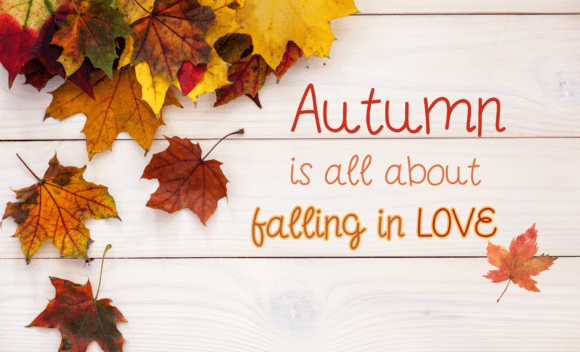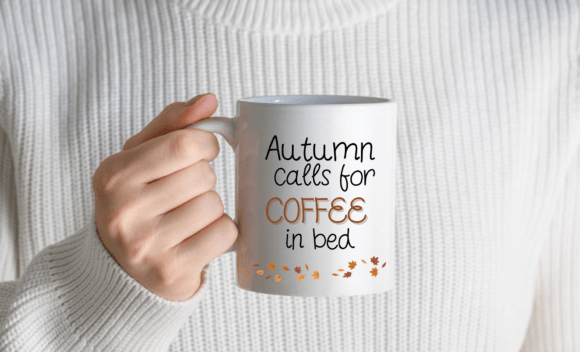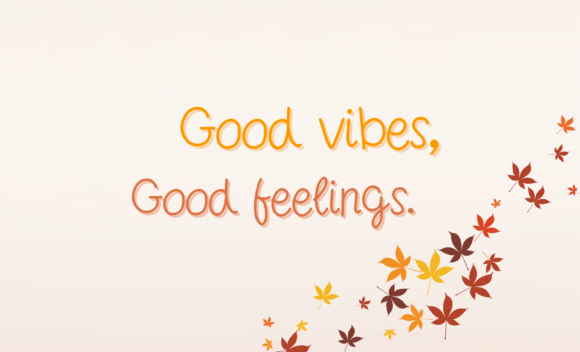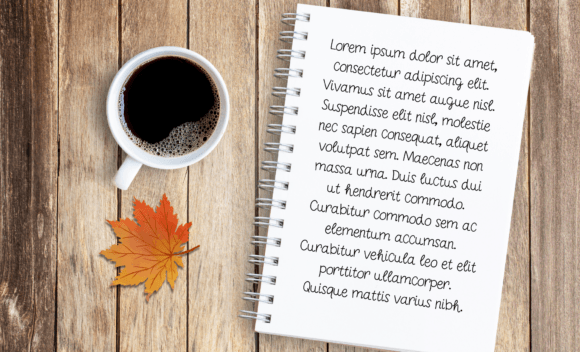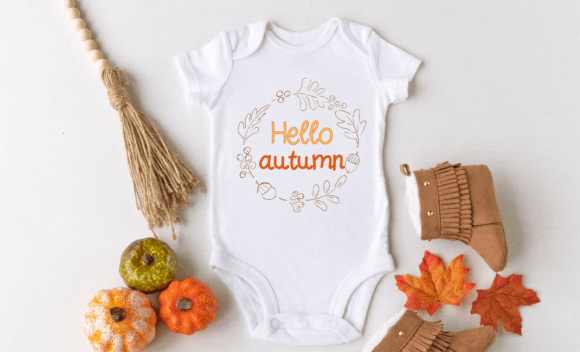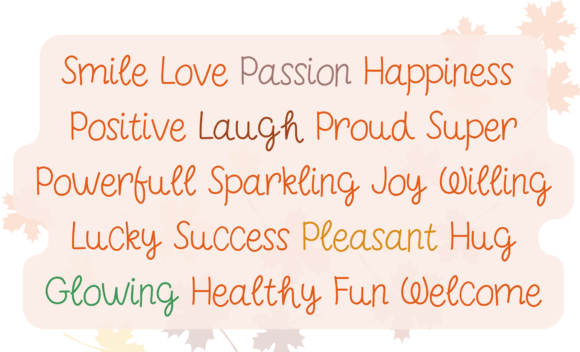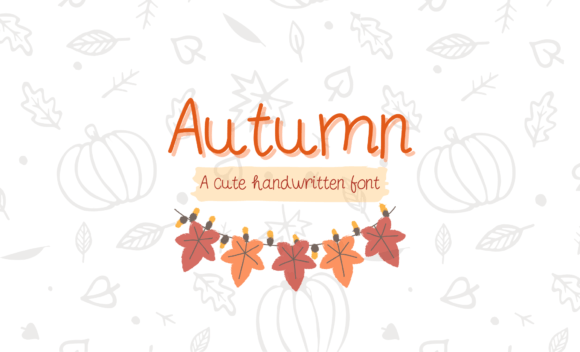
Introducing Autumn Font: The Perfect Handwritten Font for Your Creative Projects
Are you a designer, crafter, or social media enthusiast looking for a font that can add a touch of warmth and personality to your digital prints, social media posts, planners, journals, and presentations? Look no further than Autumn Font, a beautiful handwritten font that is cute, playful, neat, and clean.
What Makes Autumn Font Special?
Autumn Font is a unique and versatile font that is perfect for a wide range of creative projects. Its handwritten style gives it a personal and approachable feel, making it ideal for designs that require a touch of warmth and friendliness. Whether you’re creating digital prints, social media graphics, or printables, Autumn Font is sure to make your designs stand out.
Key Features of Autumn Font
- Cute and Playful: Autumn Font has a playful and whimsical feel that makes it perfect for designs that require a touch of fun and personality.
- Neat and Clean: Despite its playful feel, Autumn Font is also neat and clean, making it easy to read and use in a variety of designs.
- Handwritten Style: Autumn Font has a beautiful handwritten style that gives it a personal and approachable feel.
- Versatile: Autumn Font is perfect for a wide range of creative projects, including digital prints, social media graphics, planners, journals, and presentations.
Uses for Autumn Font
Autumn Font is a versatile font that can be used in a variety of creative projects, including:
- Digital Prints: Use Autumn Font to create beautiful digital prints that can be used in a variety of settings, from home decor to office spaces.
- Social Media Graphics: Autumn Font is perfect for creating social media graphics that require a touch of personality and whimsy.
- Planners and Journals: Use Autumn Font to create beautiful planners and journals that are both functional and visually appealing.
- Presentations: Autumn Font is a great choice for presentations that require a touch of warmth and personality.
Why Designers and Crafters Love Autumn Font
Designers and crafters love Autumn Font for a variety of reasons, including:
- Ease of Use: Autumn Font is easy to use and can be easily integrated into a variety of design projects.
- Customizability: Autumn Font can be customized to fit a variety of design styles and needs.
- Unique Style: Autumn Font has a unique and distinctive style that sets it apart from other fonts.
Tips for Using Autumn Font
Here are a few tips for using Autumn Font in your design projects:
- Pair with Other Fonts: Autumn Font can be paired with other fonts to create a unique and visually appealing design.
- Use in Combination with Images: Autumn Font can be used in combination with images to create a beautiful and cohesive design.
- Experiment with Colors: Autumn Font can be used with a variety of colors to create a design that is both visually appealing and effective.
Autumn Font is a beautiful and versatile handwritten font that is perfect for designers, crafters, and social media enthusiasts. Its cute, playful, neat, and clean style makes it ideal for a wide range of creative projects, from digital prints to social media graphics, planners, journals, and presentations. With its ease of use, customizability, and unique style, Autumn Font is a great choice for anyone looking to add a touch of warmth and personality to their designs.